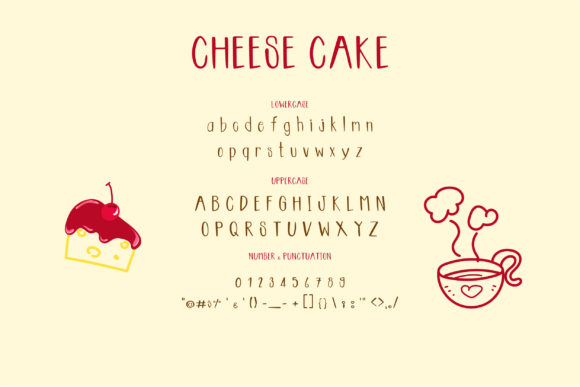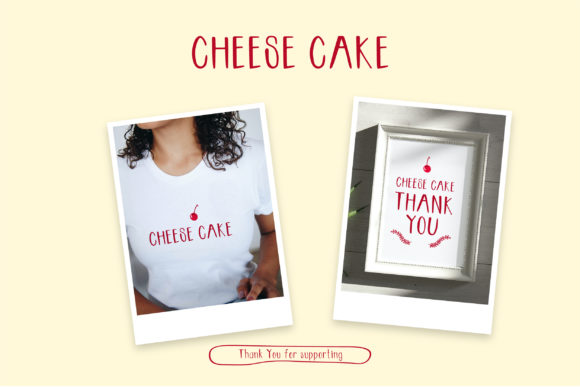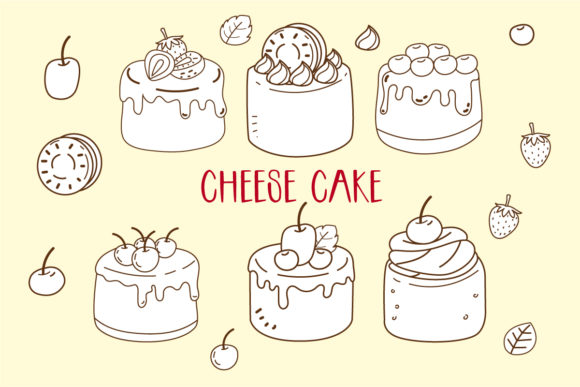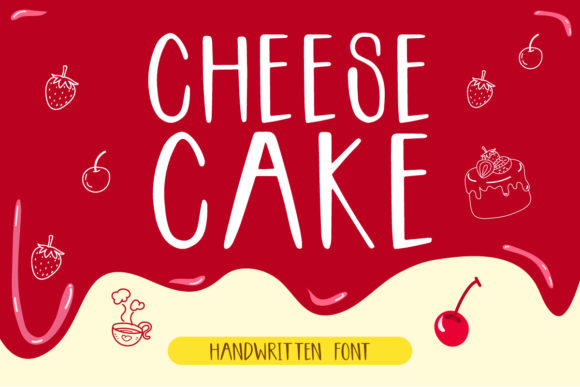
Introducing Cheesecake Font: The Perfect Handwritten Style for Chalkboard Quotes and Teaching Materials
Are you a designer, crafter, or educator looking for a unique and authentic font to add a personal touch to your chalkboard quotes, teaching materials, or craft projects? Look no further than Cheesecake Font! This beautiful handwritten font is designed to mimic the look and feel of traditional chalkboard writing, making it perfect for a variety of creative applications.
What is Cheesecake Font?
Cheesecake Font is a carefully crafted handwritten font that is designed to evoke the nostalgic feel of chalkboard writing. Its authentic look and feel make it an ideal choice for designers, crafters, and educators who want to add a personal and realistic touch to their work. Whether you’re creating chalkboard quotes, teaching materials, or craft projects, Cheesecake Font is the perfect choice.
Key Features of Cheesecake Font
- Handwritten style: Cheesecake Font is a genuine handwritten font that captures the imperfections and uniqueness of traditional chalkboard writing.
- Authentic look and feel: The font’s design is carefully crafted to mimic the look and feel of chalkboard writing, making it perfect for creating realistic and engaging designs.
- Chalkboard-inspired: Cheesecake Font is specifically designed for use on chalkboard-style backgrounds, making it ideal for creating quotes, posters, and other materials.
- Versatile: The font can be used for a wide range of creative applications, from teaching materials and craft projects to social media graphics and more.
Benefits of Using Cheesecake Font
So why choose Cheesecake Font for your design projects? Here are just a few benefits of using this amazing font:
- Adds a personal touch: Cheesecake Font’s handwritten style and authentic look and feel add a personal and realistic touch to your designs, making them more engaging and relatable.
- Perfect for educational materials: The font’s chalkboard-inspired design makes it perfect for creating teaching materials, such as lesson plans, worksheets, and classroom posters.
- Ideal for crafters: Cheesecake Font is also a great choice for crafters who want to add a personal touch to their projects, such as handmade cards, scrapbook pages, and more.
Need some inspiration for using Cheesecake Font? Here are a few ideas to get you started:
- Create chalkboard quotes: Use Cheesecake Font to create beautiful chalkboard-style quotes for social media, blogs, or websites.
- Make teaching materials: Use the font to create engaging teaching materials, such as lesson plans, worksheets, and classroom posters.
- Design craft projects: Add a personal touch to your craft projects, such as handmade cards, scrapbook pages, and more.
With its authentic look and feel, Cheesecake Font is the perfect choice for designers, crafters, and educators who want to add a personal and realistic touch to their work. So why wait? Download Cheesecake Font today and start creating beautiful, chalkboard-style designs that will engage and inspire your audience!
| Font Name | Cheesecake Font |
| Author | nattyinshop |